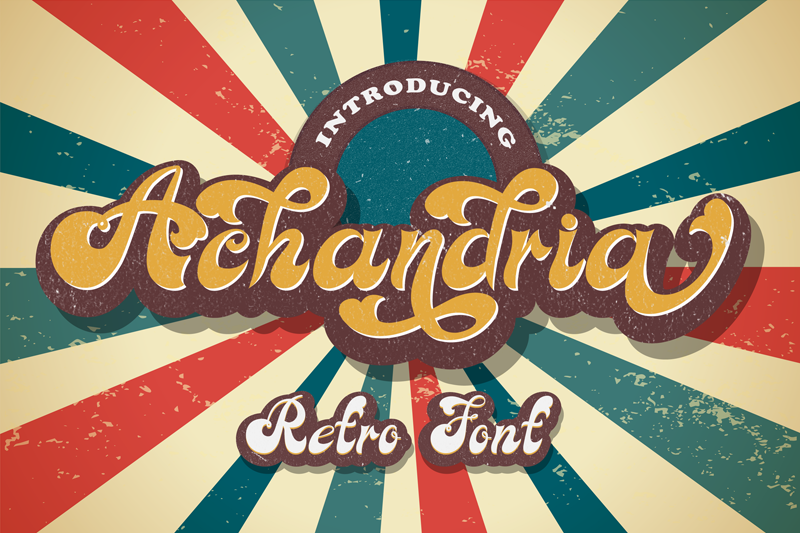
Font name: | Achandria |
Author: | Javatype Studio |
Introducing Achandria A Retro Font Inspired from retro typography from the 80's combine with bold typography style. Come with an open type feature with a lot of alternates and end swash, it helps you to make great lettering. NOTE: This demo font is for PERSONAL USE ONLY! But any donation are very appreciated Paypal account for donation: http://paypal.me/tyoyulianto link to purchase full version and commercial license https://www.creativefabrica.com/product/achandria/ref/433909/ please visit and follow my portfolio update: 1. dribbble https://dribbble.com/javatypestd 2.Behance https://www.behance.net/javatypestd 3.Pinterest https://id.pinterest.com/javatypestd/pins/ 4. Instagram https://www.instagram.com/javatype.studio/ 5. Facebook https://web.facebook.com/javatype.std/ Thank You Javatype Studio |